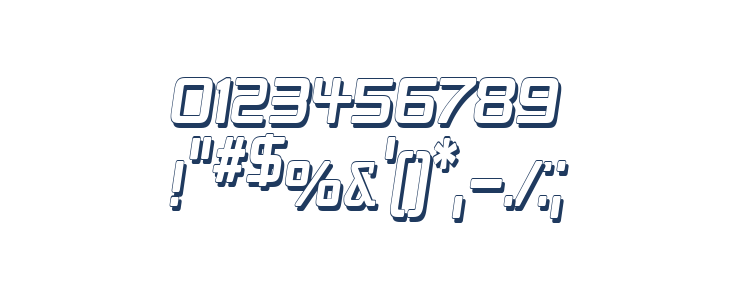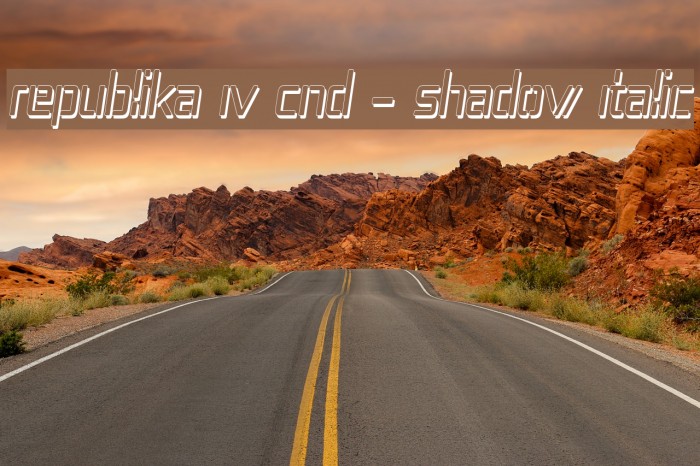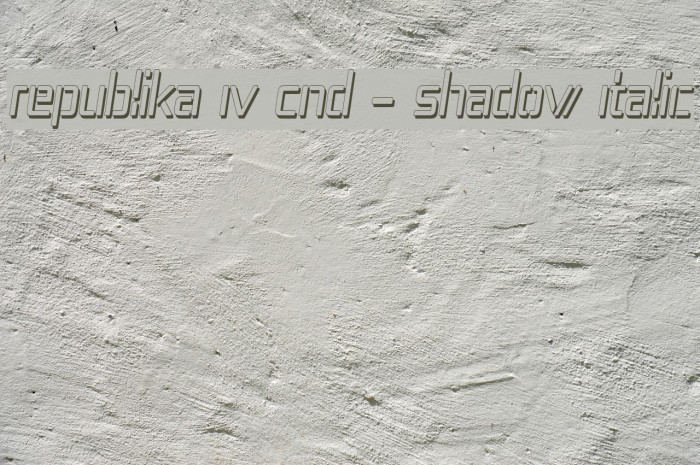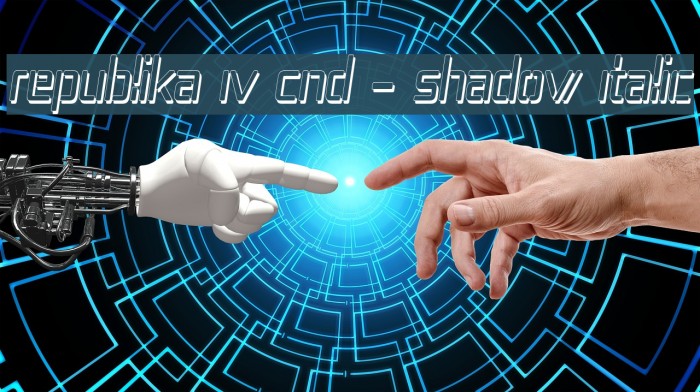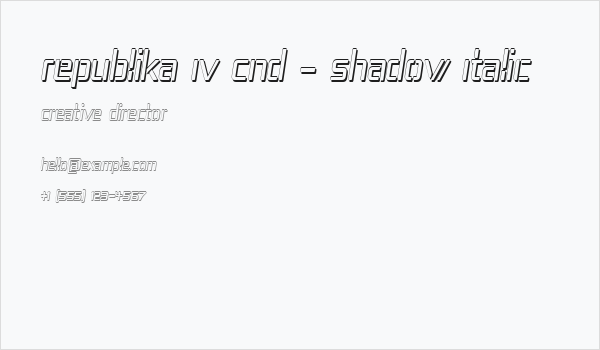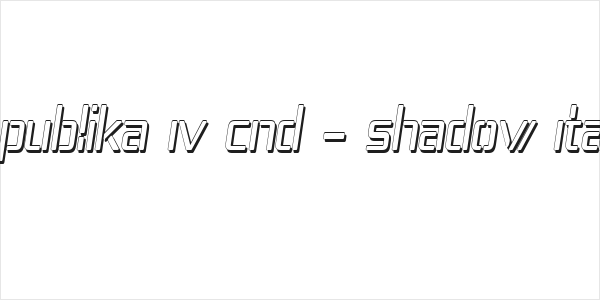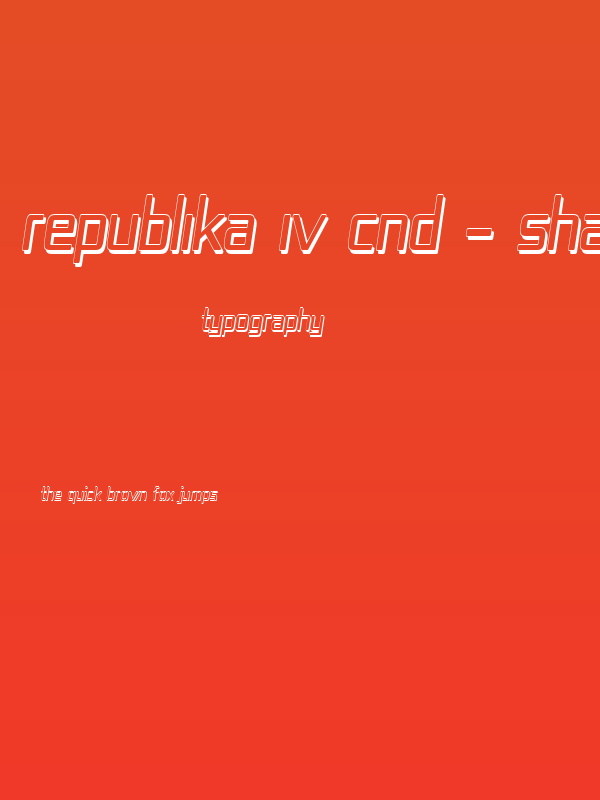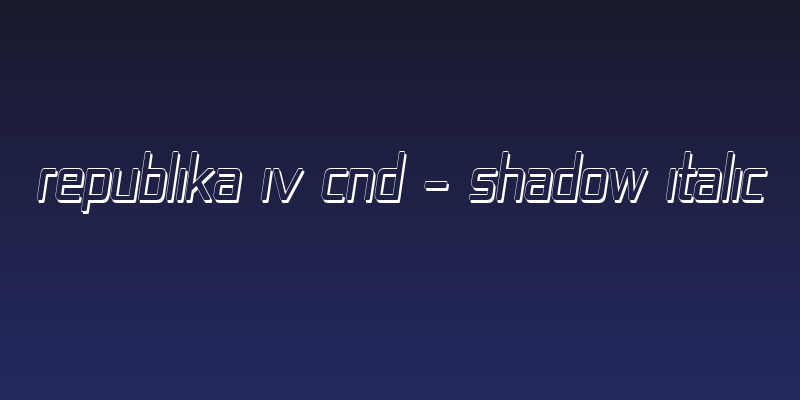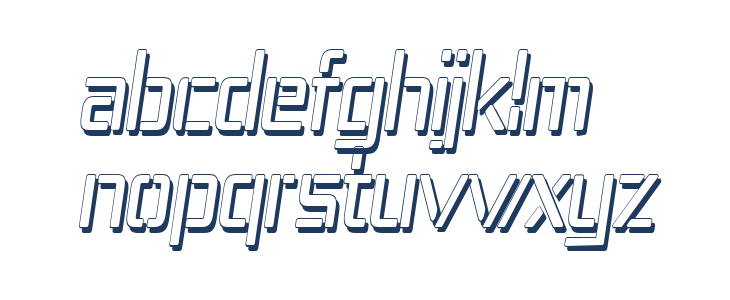
Republika IV Cnd - Shadow Italic Font
Republika IV Cnd - Shadow Italic Description
This font features a bold, condensed style with a distinct shadow effect that gives it a three-dimensional appearance. The italicized letters add a dynamic and forward-leaning aspect, enhancing its modern and edgy look. Each character is well-defined with clean lines and sharp angles, making it highly legible while maintaining a unique aesthetic. The shadow effect is consistent across all characters, providing a cohesive and striking visual impact. This font's design is both futuristic and versatile, suitable for a variety of creative applications.
| Proposed Projects | Ideal for branding, posters, headlines, and any project requiring a bold, modern statement. |